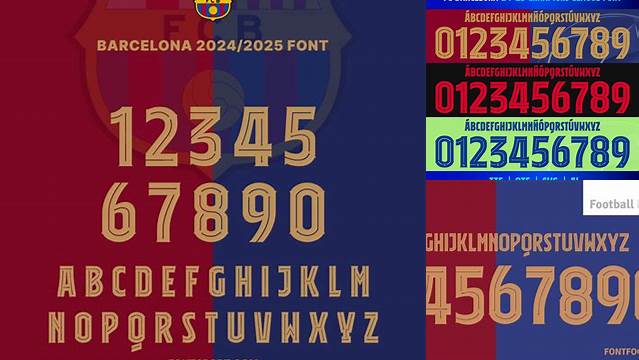
Hey guys! Are you on the hunt for the perfect font to give your projects that sleek, modern Barcelona vibe? You've come to the right place! In this comprehensive guide, we're diving deep into the world of the Barcelona font, exploring its origins, uses, and, most importantly, how you can snag a free download in 2025. Finding the right font can be a game-changer for your designs, whether you're working on a website, a presentation, or even a personal project. The Barcelona font, with its clean lines and contemporary feel, is a fantastic choice for a wide range of applications.
But before we jump into the download details, let's take a closer look at what makes the Barcelona font so special. This font family is known for its versatility and readability, making it a popular choice among designers and creatives. Its design is inspired by the vibrant and modern spirit of Barcelona, a city renowned for its architecture, art, and culture. The font's clean and geometric structure gives it a professional and polished look, while its subtle curves and variations add a touch of personality and warmth. Whether you're aiming for a minimalist aesthetic or a more dynamic and expressive design, the Barcelona font can help you achieve your vision. Its adaptability makes it suitable for both headlines and body text, ensuring a consistent and cohesive look throughout your project. So, if you're looking to add a touch of modern elegance and sophistication to your work, the Barcelona font is definitely worth considering.
The Barcelona font family typically includes a variety of weights and styles, ranging from light and thin to bold and heavy. This allows you to create visual hierarchy and emphasis within your designs, making it easy to guide the viewer's eye and highlight key information. The different styles also provide flexibility for various design needs, such as logos, branding materials, websites, and print publications. For example, you might use a bold weight for headlines and a regular weight for body text, or you could use an italic style to add emphasis or create a visual contrast. The wide range of options within the Barcelona font family ensures that you have the tools you need to create visually appealing and effective designs. And let's be honest, who doesn't love having options? When you have a versatile font like Barcelona in your toolkit, you can confidently tackle any design challenge that comes your way. So, let's get ready to explore the possibilities and discover how this font can elevate your projects!
What is the Barcelona Font and Why is it Popular?
So, what exactly is the Barcelona font, and why is it such a popular choice? Let's break it down. The Barcelona font, as the name suggests, is a typeface that draws inspiration from the city of Barcelona, Spain. Known for its modern architecture, vibrant culture, and artistic flair, Barcelona embodies a sense of contemporary elegance. The font aims to capture this essence, offering a clean, modern, and versatile design. Think of it as the typographic equivalent of a stylish Barcelona apartment – sleek, sophisticated, and effortlessly cool. But what makes it so popular? Well, there are several reasons why designers and creatives are drawn to the Barcelona font. Firstly, its readability is a major plus. The font's clear and well-defined letterforms make it easy to read in both print and digital formats. This is crucial for ensuring that your message is effectively communicated, whether you're designing a website, a brochure, or a presentation. No one wants to squint and struggle to decipher text, so readability is a key factor in font selection.
Secondly, the versatility of the Barcelona font is another significant advantage. It's not a one-trick pony! This font family typically includes a range of weights and styles, from light and airy to bold and impactful. This allows you to use the font in a variety of contexts, from headlines and subheadings to body text and captions. You can create visual hierarchy and emphasis by using different weights and styles, ensuring that your design is both aesthetically pleasing and functionally effective. Imagine using a bold weight for your headlines to grab attention and a lighter weight for your body text to create a comfortable reading experience. That's the power of a versatile font! Thirdly, the Barcelona font boasts a modern and professional aesthetic. It's clean, contemporary, and exudes a sense of sophistication. This makes it a great choice for businesses and organizations that want to project a polished and credible image. Whether you're designing a logo, a website, or marketing materials, the Barcelona font can help you convey a sense of competence and trustworthiness. In today's competitive world, first impressions matter, and your font choice plays a crucial role in shaping those impressions.
Moreover, the geometric design of the Barcelona font gives it a distinctive and memorable appearance. The clean lines and precise shapes create a sense of order and structure, while subtle variations and curves add a touch of personality and warmth. This balance between precision and expressiveness is what makes the Barcelona font so appealing. It's not just another generic sans-serif font; it has its own unique character and charm. When you choose the Barcelona font, you're not just selecting a typeface; you're selecting a visual identity. And let's not forget the emotional impact of fonts. Fonts have the power to evoke feelings and associations. The Barcelona font, with its modern and elegant design, can convey a sense of sophistication, innovation, and creativity. It's a font that says,